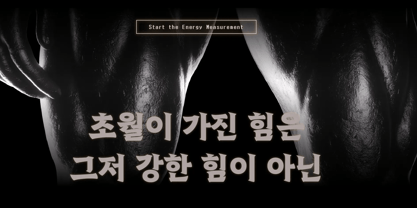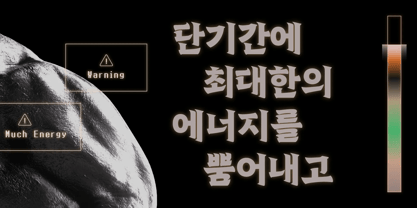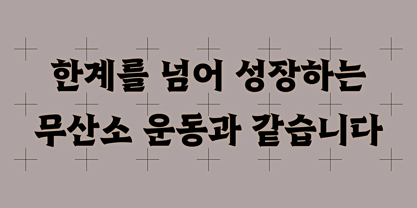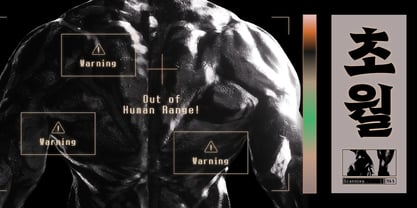
Yoon Chowal
by Yoon Design
The Yoon Chowal Font Family was designed by Yoon Design Team and published by Yoon Design. Yoon Chowal contains 1 styles. More about this family
Yoon Chowal embodies explosive power beyond limits. Inspired by intense anaerobic exercise, its strong strokes convey speed, momentum, and unstoppable energy for high-impact performance designs.
Family size: A single weight.
Glyph count: 11,172 hangeul glyphs, 95 Latin glyphs, 985 KS symbols, and 5 ligatures.
Language support: Multi-lingual support for English, Korean, and more.
Designers: Yoon Design Team
Foundry: Yoon Design